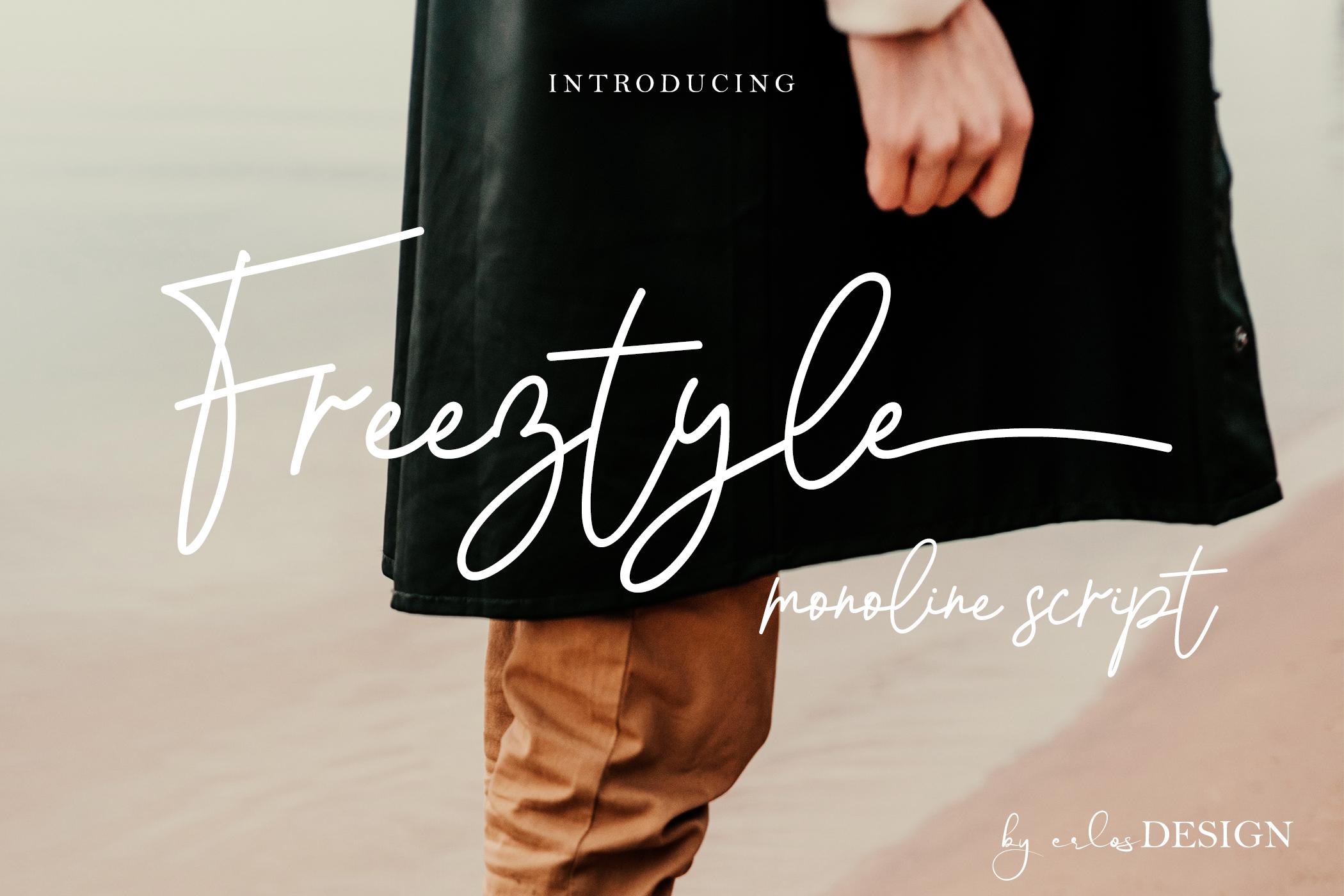
Freeztyle Font Description
Freeztyle is a flowing, thin and elegant handwritten font. Its casual charm makes it appear wonderfully down-to-earth, readable and, ultimately, incredibly versatile. This font is PUA encoded which means you can access all of the glyphs and swashes with ease!